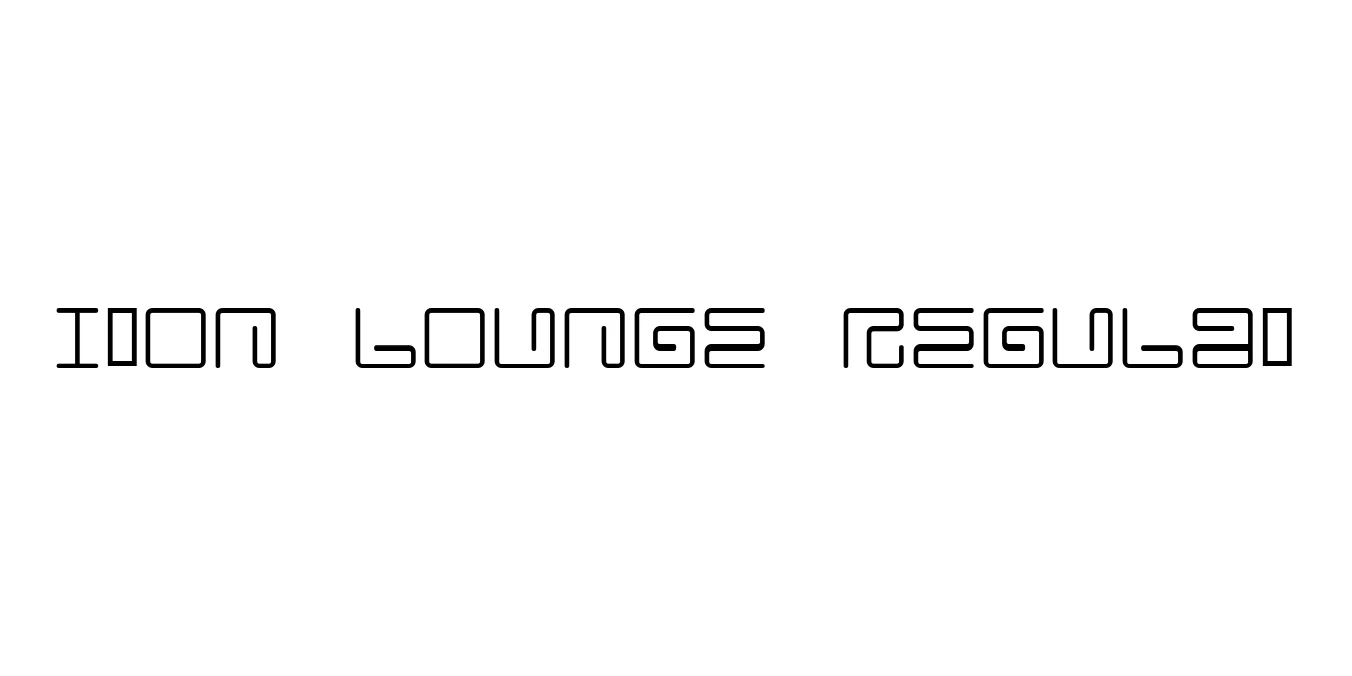
Iron Lounge Regular
Designed by Ray Larabie (Typodermic Fonts)
Iron Lounge Regular is a sleek, wide display typeface created by the prolific designer Ray Larabie. The font encapsulates a distinct industrial aesthetic, drawing inspiration from mid-century technical lettering and 1970s science fiction typography. Its squarish proportions and subtle rounded corners provide a balance between mechanical rigidity and modern accessibility, making it a standout choice for high-impact visual design.
Functionally, Iron Lounge Regular excels in environments where a sense of strength and technological advancement is required. Whether used in digital interfaces or printed architectural signage, the font maintains excellent legibility. It is particularly popular among designers looking to evoke a professional yet futuristic tone, bridging the gap between retro-tech nostalgia and contemporary minimalism.
Iron Lounge Regular Best Uses
Excellent for creating bold, memorable brand identities for tech and manufacturing firms.
Ideal for corporate identities that require a sturdy, stable, and professional appearance.
Perfect for science fiction or action film titles and promotional marketing materials.
Works well for headers and button text in modern software applications and gaming HUDs.